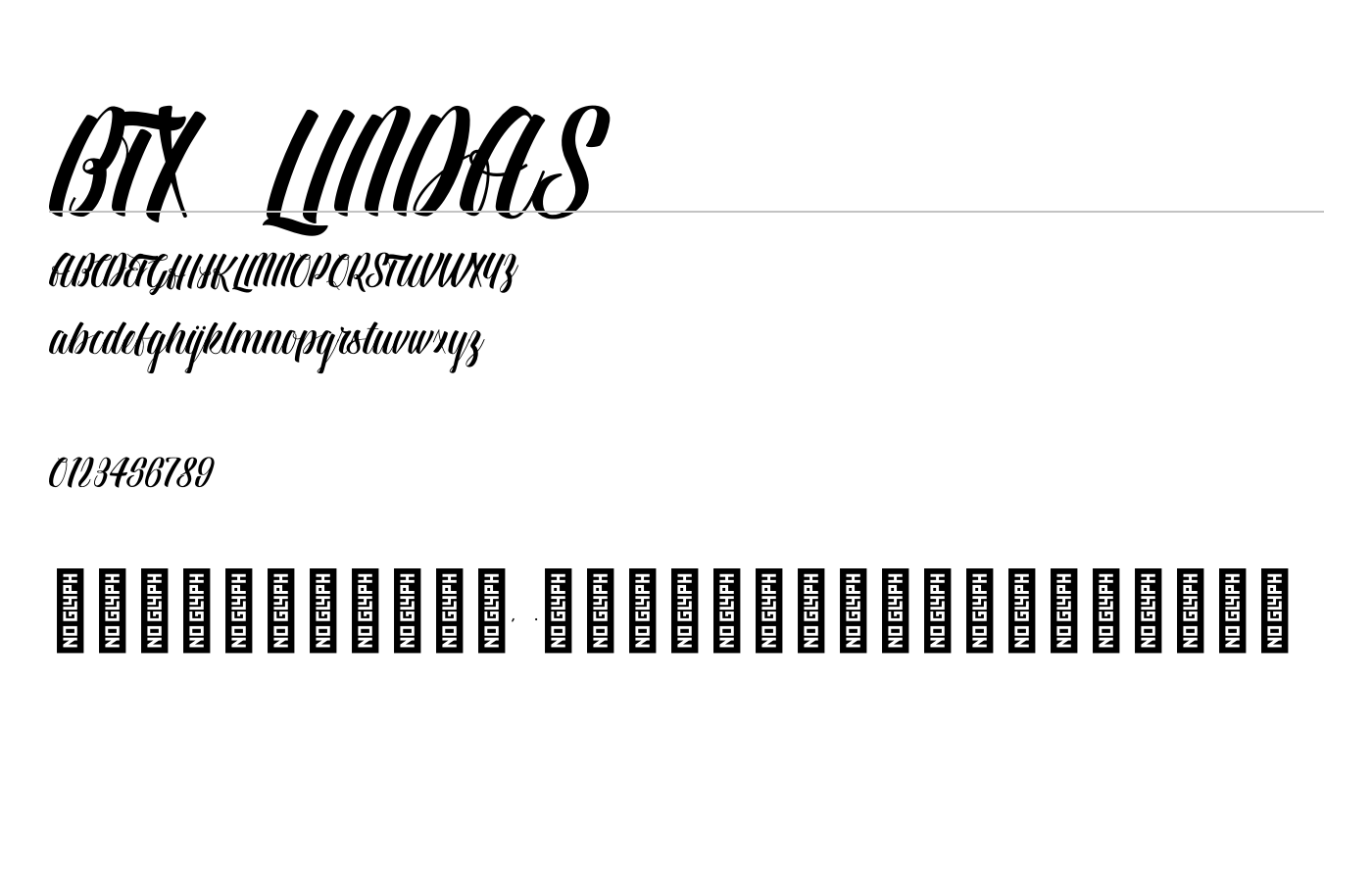
BTX-LINDAS is an elegant, narrow script font with a fluid, handwritten style that features tall, slender letterforms and smooth, flowing strokes. Its high contrast and graceful curves give it a sophisticated and stylish feel, making it ideal for fashion branding, invitations, and upscale editorial projects where a touch of refinement and personality is desired. This font works best in headlines and display use, adding a chic, luxurious flair to any design.
About BTX-LINDAS Font